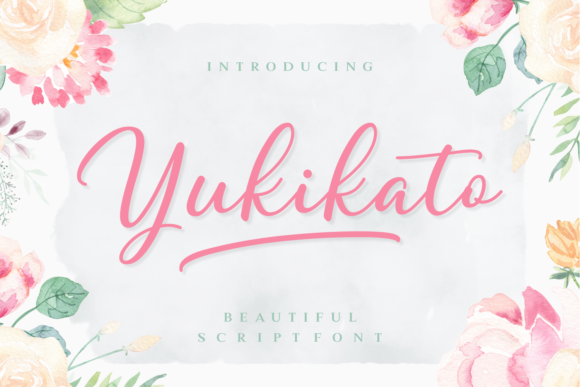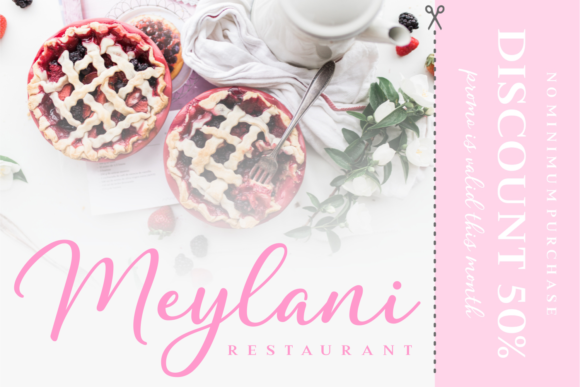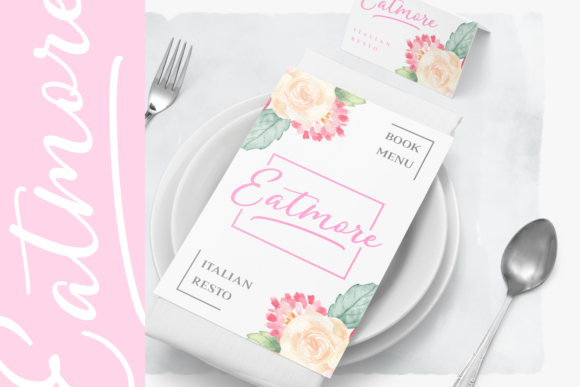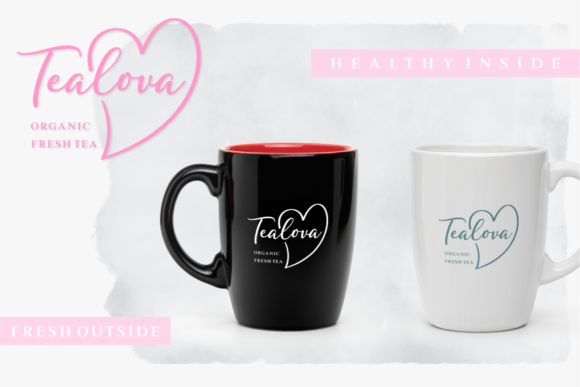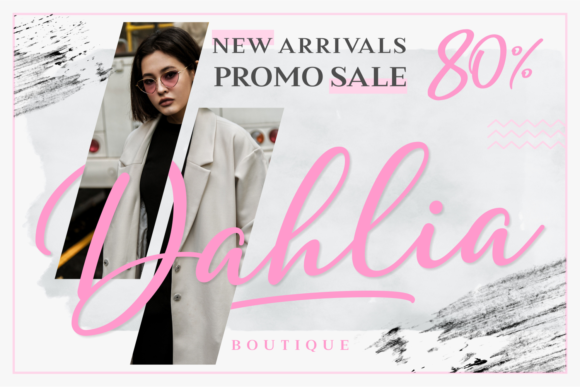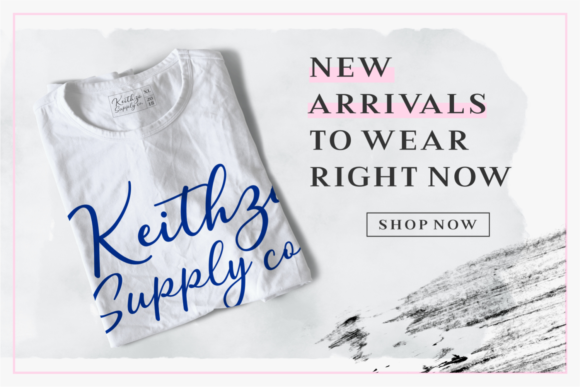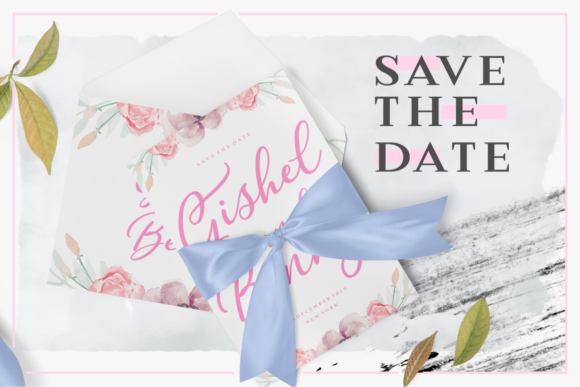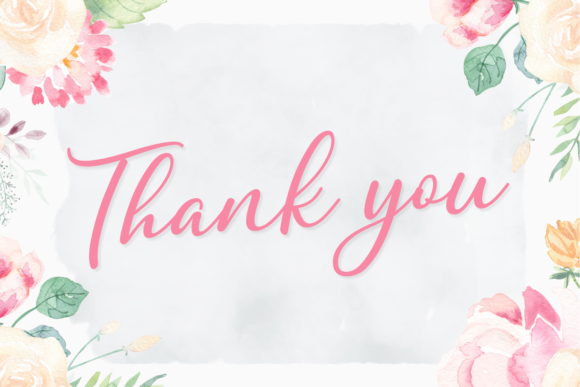
Yukikato Font
About Yukikato Font
Yukikato is a beautiful and sweet looking script font. Yukikato will give your design a feminine look and feel and contains lots of beautiful swashes which makes it perfect for modern designs by adding a delicate quality.